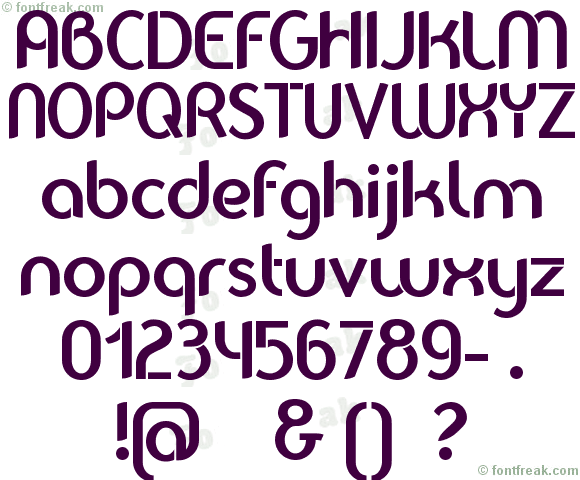
Balkeno
About Balkeno
Balkeno, designed by Benoit Sjoholm in 2010, is a striking display font that exudes a modern, playful vibe. This typeface, categorized as a sans-serif, showcases a unique blend of rounded edges and geometric forms, creating a sense of warmth and friendliness. The strokes are consistent in weight, with a balanced contrast that enhances legibility while maintaining an inviting appearance. The generous spacing between the characters adds to its readability, making it suitable for various applications.
The decorative elements of Balkeno give it a distinctive flair, making it ideal for creative projects. It shines in contexts such as wedding invitations, where its charming aesthetic can convey a sense of joy and celebration. Additionally, Balkeno is perfect for movie posters, bringing a modern touch that captures attention. Restaurant menus also benefit from its inviting nature, allowing dishes to be presented in a way that feels both stylish and approachable. Content creators will find it useful for social media graphics, as its playful design can elevate visual storytelling and engagement.
Targeted primarily at graphic designers, small business owners, and content creators, Balkeno offers versatility that can enhance branding and marketing efforts. Its modern design appeals to those looking to make a statement while ensuring clarity and visual appeal.
What sets Balkeno apart is its ability to combine functionality with a distinctive personality. It stands as a testament to contemporary typography, balancing aesthetics and practicality. With a Balkeno font free download available, designers and creators can easily incorporate this unique typeface into their projects, allowing for a fresh and engaging visual experience. Whether for professional or personal use, Balkeno is a standout choice that uplifts any design.